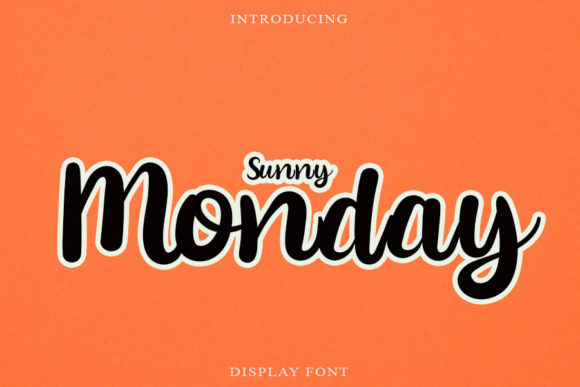
Discover the Enchanting Embrace of Sunny Monday Font: A Scriptwriter's Haven
Indulge in the exquisite artistry of Sunny Monday, a breathtaking script font crafted to ignite your creative spark. This captivating font, designed by the visionary minds at lookstylemedia, exudes an air of refinement and sophistication, making it the ultimate choice for your most discerning design endeavors.
Step into a world where your words dance with unparalleled grace and elegance. Sunny Monday's meticulously crafted characters possess a harmonious balance, ensuring a seamless flow that will captivate your audience. Each letterform is a masterpiece, adorned with delicate curves and subtle flourishes that evoke a sense of timeless beauty.
Whether you're a seasoned scribe seeking to elevate your written masterpieces or a budding artist yearning to infuse your designs with a touch of magic, Sunny Monday is the font that will unlock your creative potential. Its versatility knows no bounds, seamlessly adapting to a myriad of design aesthetics. From whimsical invitations and heartfelt letters to captivating logos and enchanting branding, this font will transform your words into works of art.
Unleash the power of Sunny Monday and watch as your ideas take flight. Its readability makes it ideal for extended passages, allowing your words to flow effortlessly before your readers' eyes. Immerse your audience in a world of pure eloquence, where every word carries weight and evokes emotions.
Sunny Monday is not merely a font; it's an invitation to embark on a creative journey where your imagination reigns supreme. Embrace the enchanting allure of this scriptwriter's haven and witness the transformative power it brings to your designs. Let Sunny Monday be your muse, inspiring you to weave tales that captivate, enchant, and leave an everlasting impression.